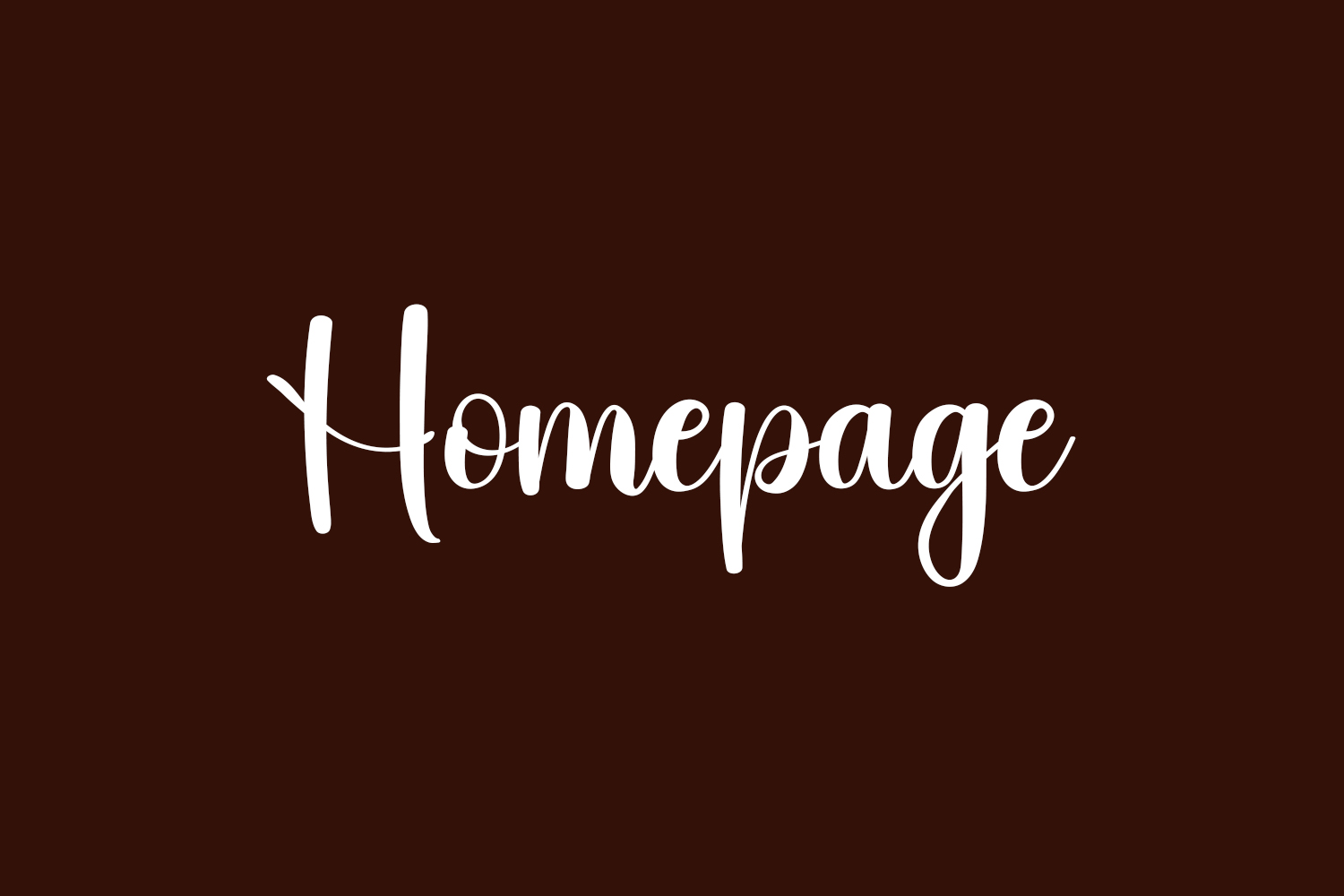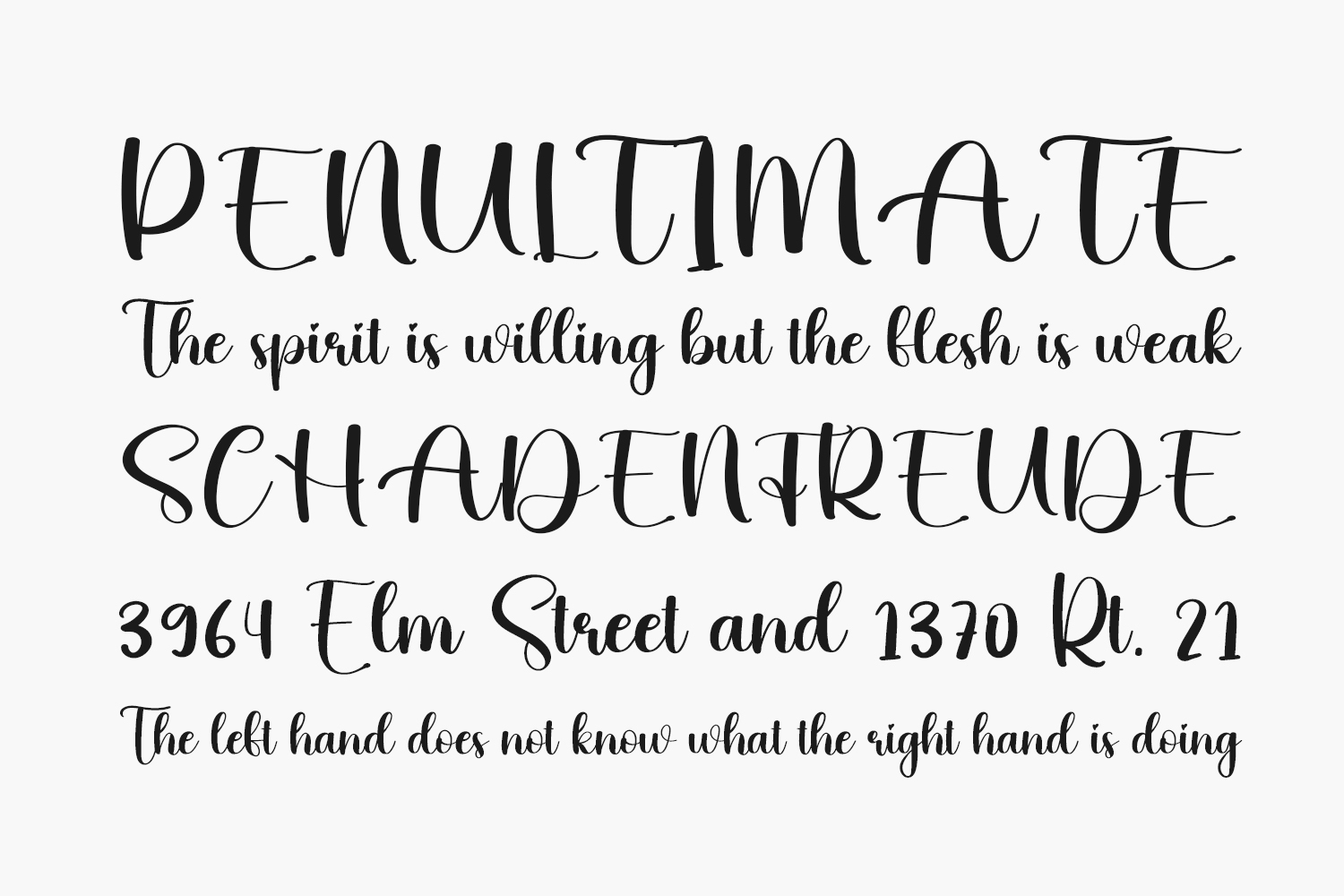
Explore Homepage Free Font, a stylish and tidy script font with a cool handwritten flair. Balancing its elegant calligraphic roots with a modern and fresh vibe, this font is designed to captivate. Embrace its charm and elevate your projects to new heights of sophistication and creativity. Homepage Free Font was designed by Scratchones and is free for personal use only. Please purchase the full version for commercial use.